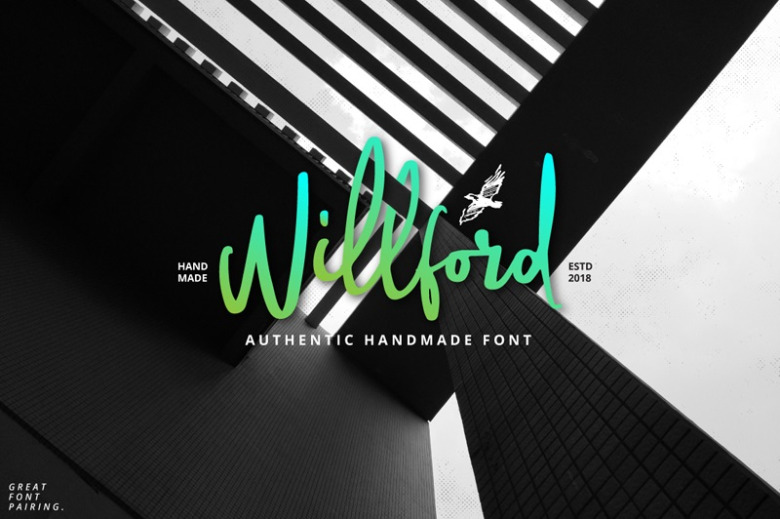
Willford Brush Font
Introducing Willford Brush Font, a modern, freestyle, free flowing, friendly and organic brush script. Can be used for a variety of purposes – Branding, Posters, Logos, Greeting Cards, Wedding Stationery and Quotes.